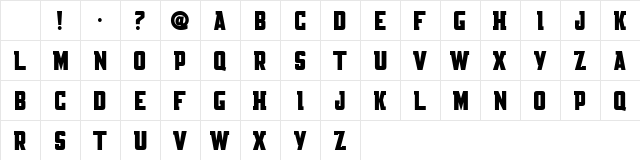
Complete Knackpack_Std_Reg_DEMO Regular glyph index. Displaying only characters natively supported by Knackpack_Std_Reg_DEMO Regular font.
Knackpack_Std_Reg_DEMO is a composed and adaptable typeface that performs quietly and consistently across a wide range of design contexts.